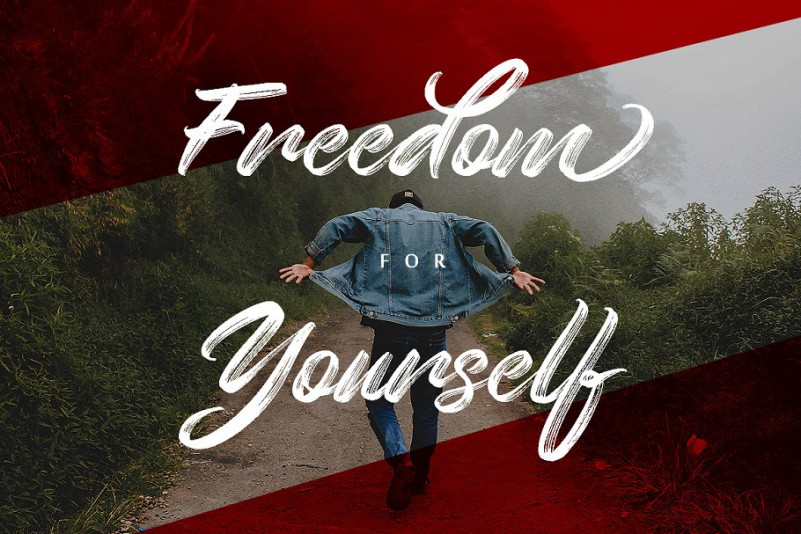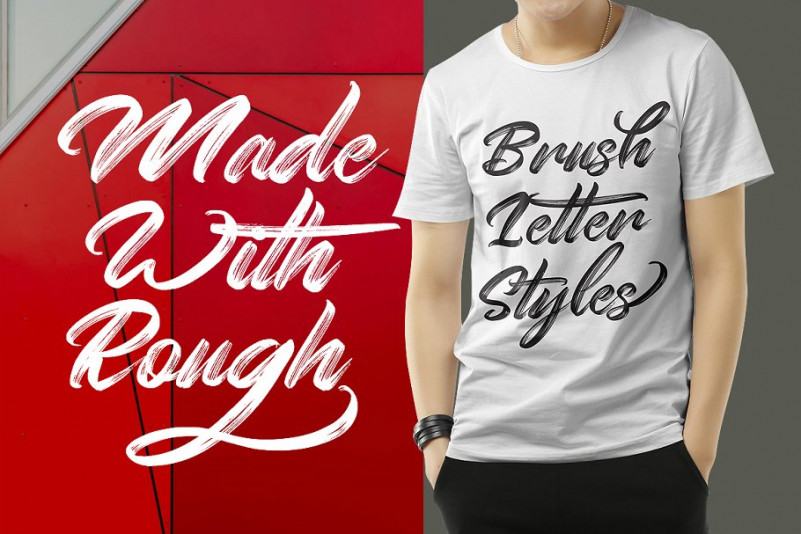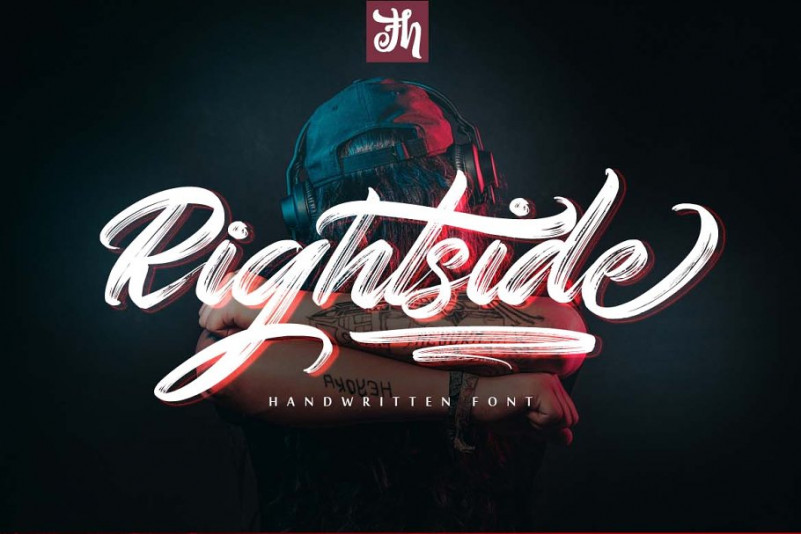
Rightside Font
Rightside is Script Font with Handlettering Dry Brush Style, with opentype feature include of the font. Suitable for design, element design, wedding, event, t-shirt, logo, badges, sticker, and awesome work, etc…